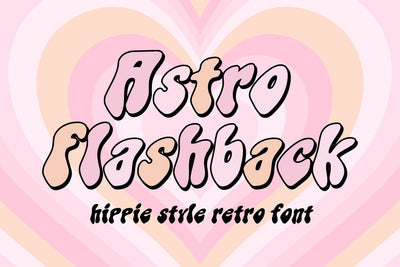
Astro Flashback - A Handwritten Retro Font
Astro Flashback: Relive the Retro Era with Handwritten Retro Font
Transport yourself to a bygone era with Astro Flashback, a captivating handwritten font that exudes vintage charm. Inspired by the iconic styles of the past, this retro font brings a sense of nostalgia to your designs. Its flowing strokes and carefully crafted imperfections create an authentic handwritten feel. Perfect for posters, logos, and invitations, Astro Flashback adds a touch of retro allure to any project. Embrace the timeless appeal of the past and give your designs a captivating Astro Flashback.